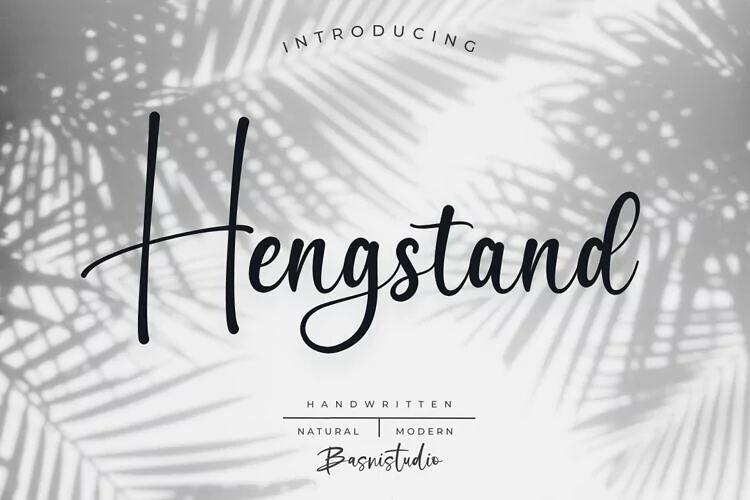
Jan 29, 2025Script & HandwrittenHengstand Font Hengstand is a pretty handwritten script font, made with natural look and smooth precision strokes, perfect for branding, websites, and editorial designs. Font DetailsDesigned by: BasnistudioWebsiteLicense: Free for personal use Download Hengstand FontFile size: 34.00 KBCreated: February 16, 2025Updated: February 16, 2025 Download Explore related fonts Juliette Rayleigh Font Twilight Horizon Font Honeycomb Font Arabella Rentharis Font Honey Bear Font Biancha Font Highnessa Font Yureliya Font # Calligraphy# Hand-drawn# Handwriting# Pretty